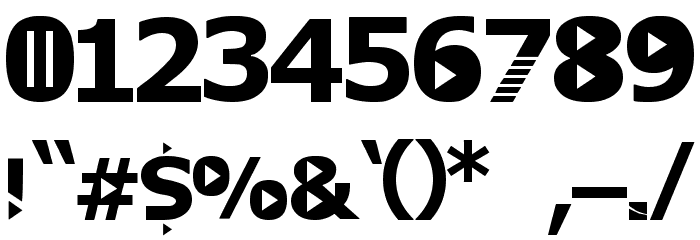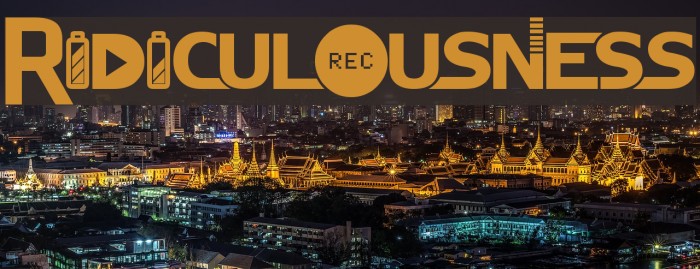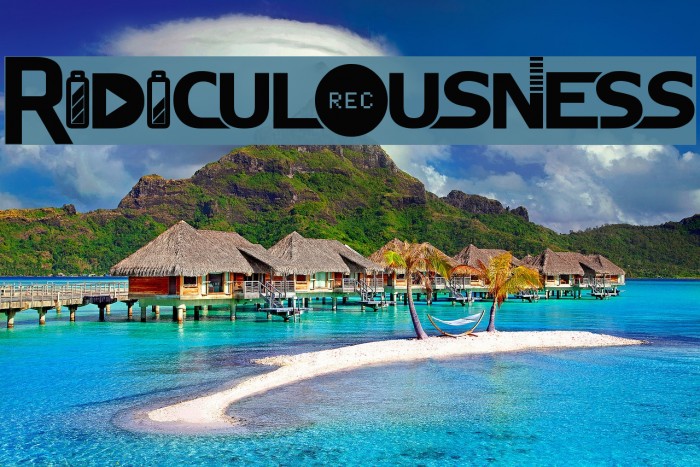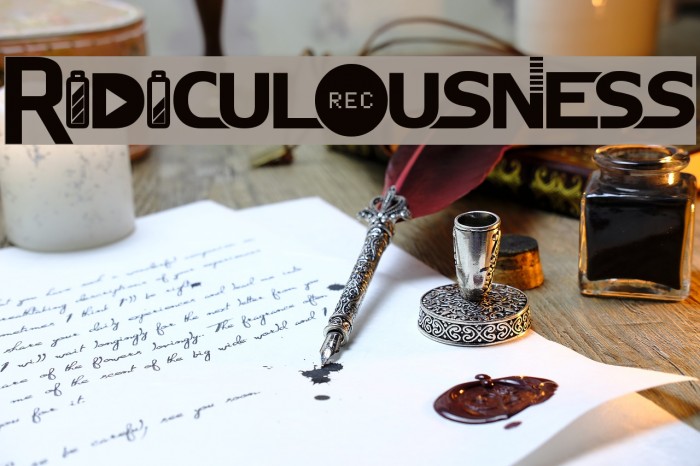
RidIculOuSnesS Font
This font is a bold, decorative typeface with a modern and edgy style. It features a unique combination of geometric shapes and lines, creating a futuristic and dynamic appearance. The characters are designed with varying line thicknesses and incorporate elements such as stripes and cutouts, adding to its distinctiveness. The uppercase and lowercase letters maintain a consistent style, while the numbers and special characters complement the overall design. This font is ideal for projects that require a strong visual impact and a contemporary feel.
A bold, modern decorative font with geometric and dynamic elements.
- Proposed Projects: Ideal for branding, posters, album covers, and digital media projects that require a bold and futuristic look.